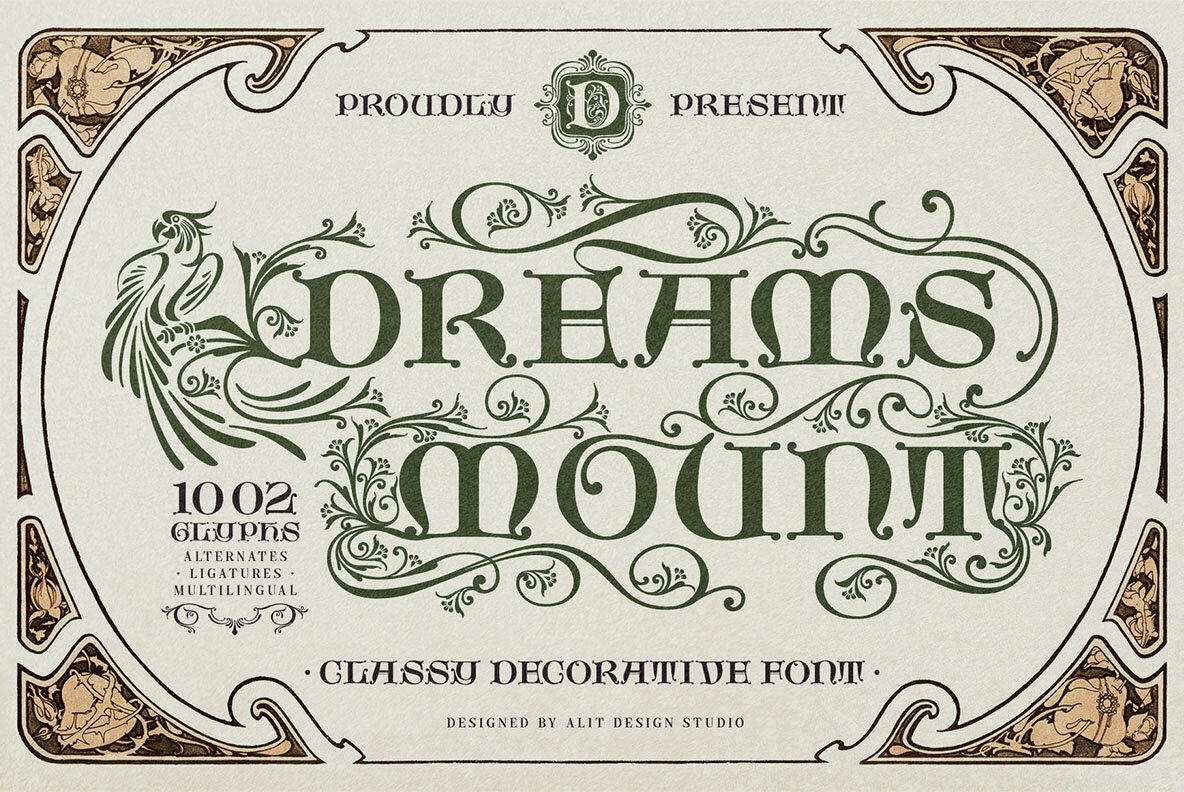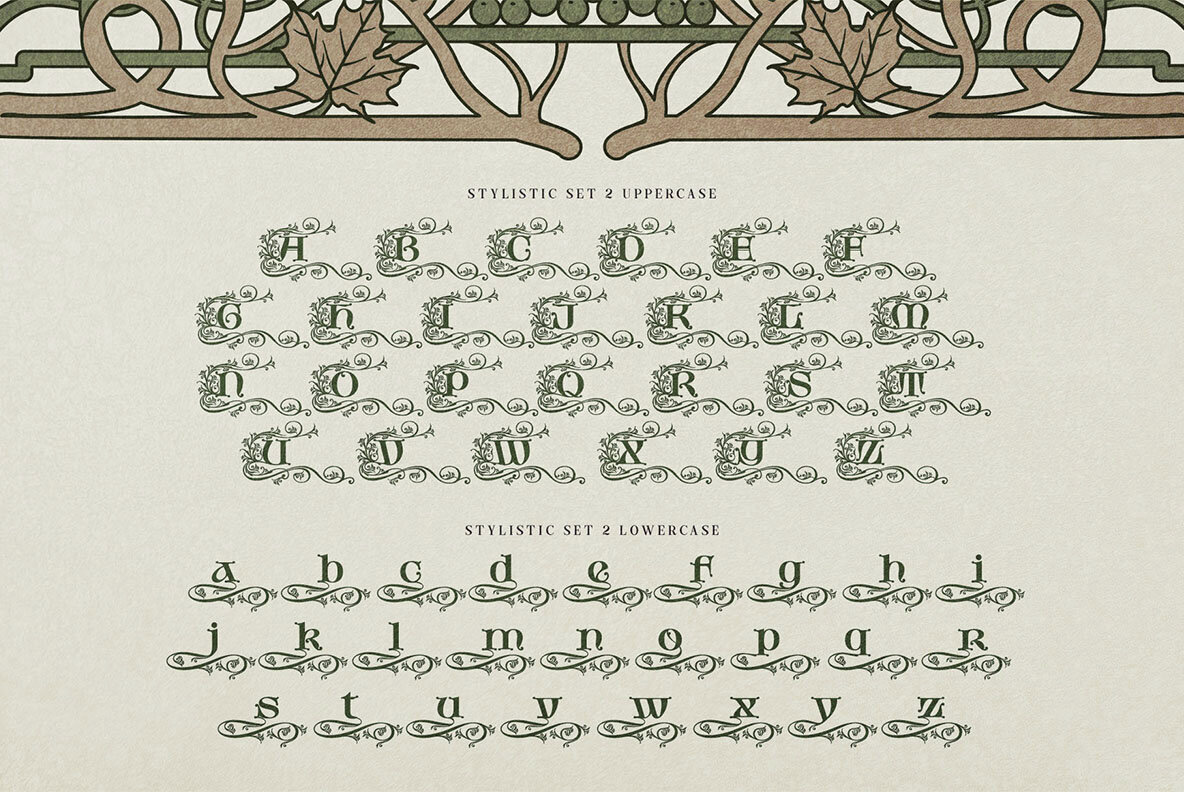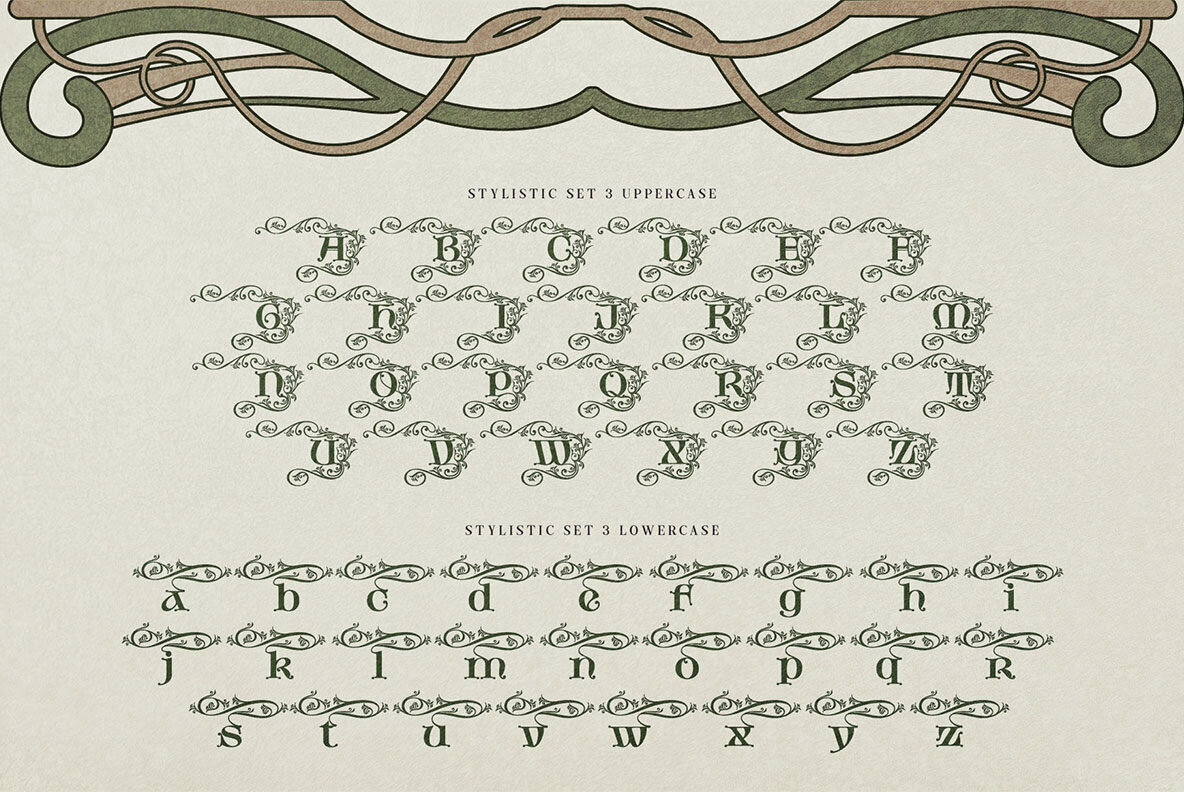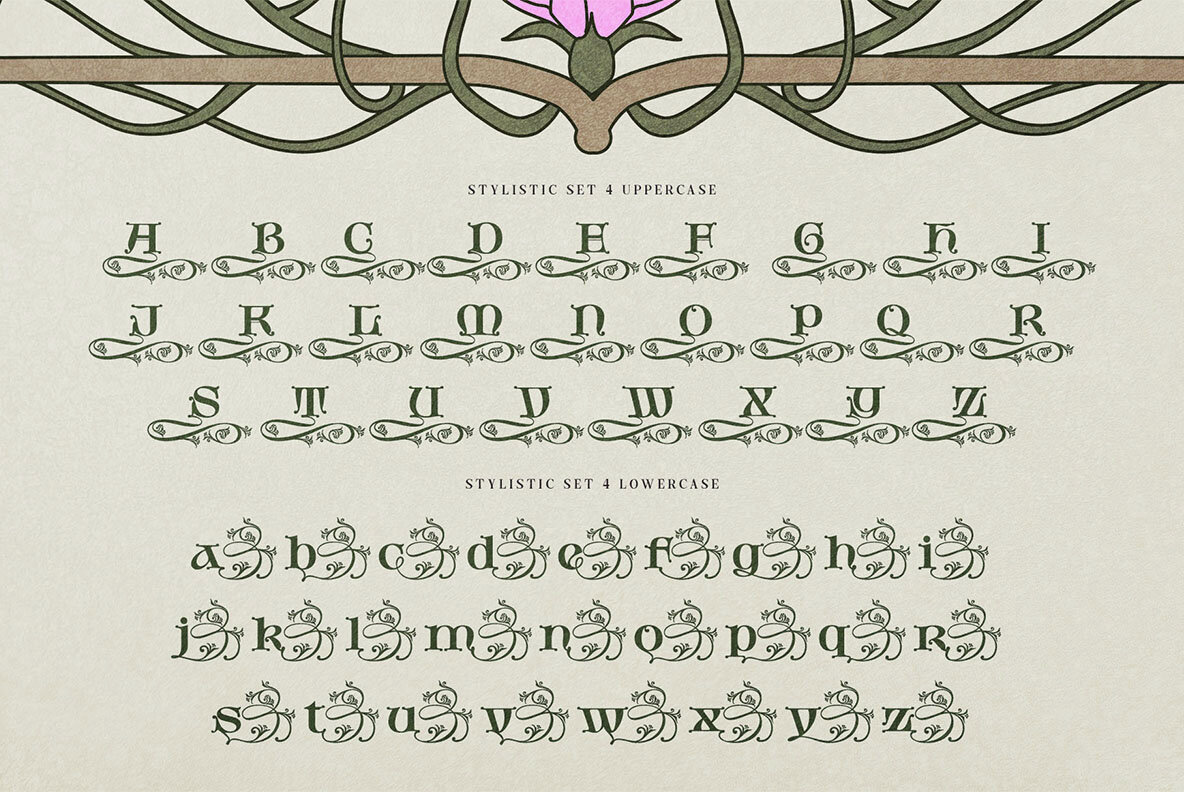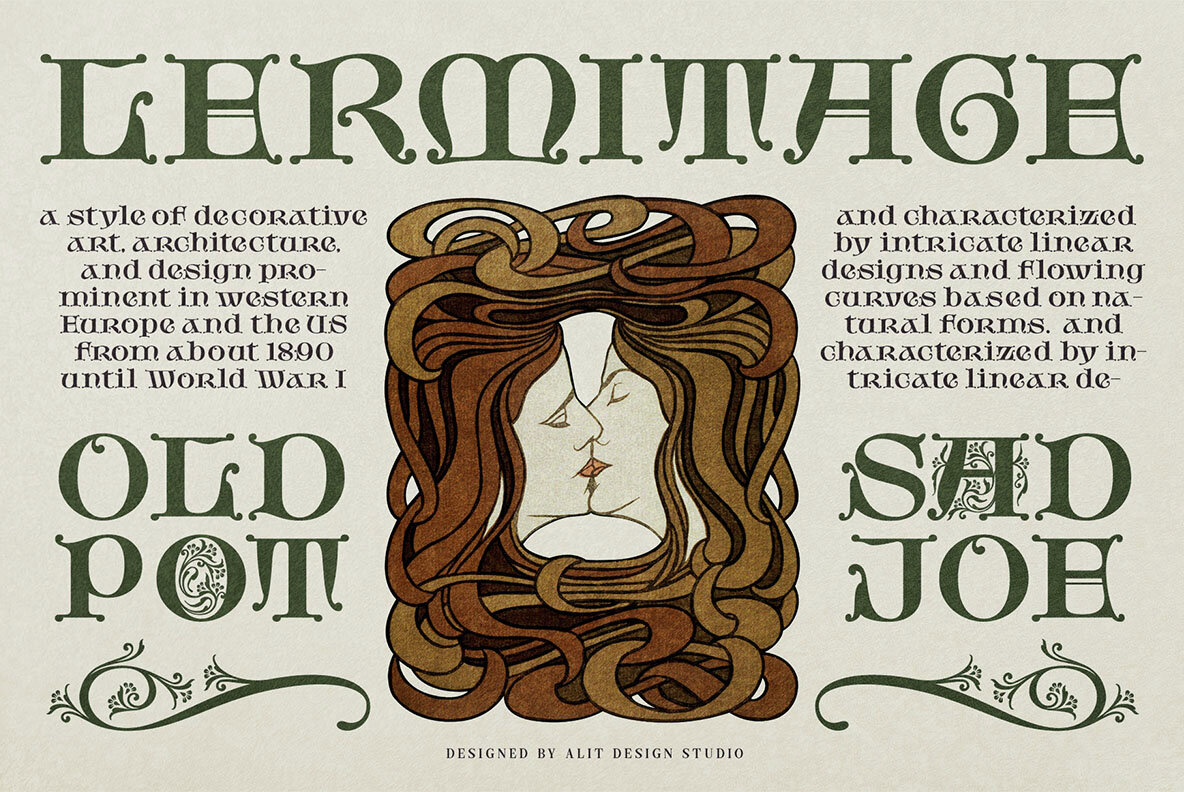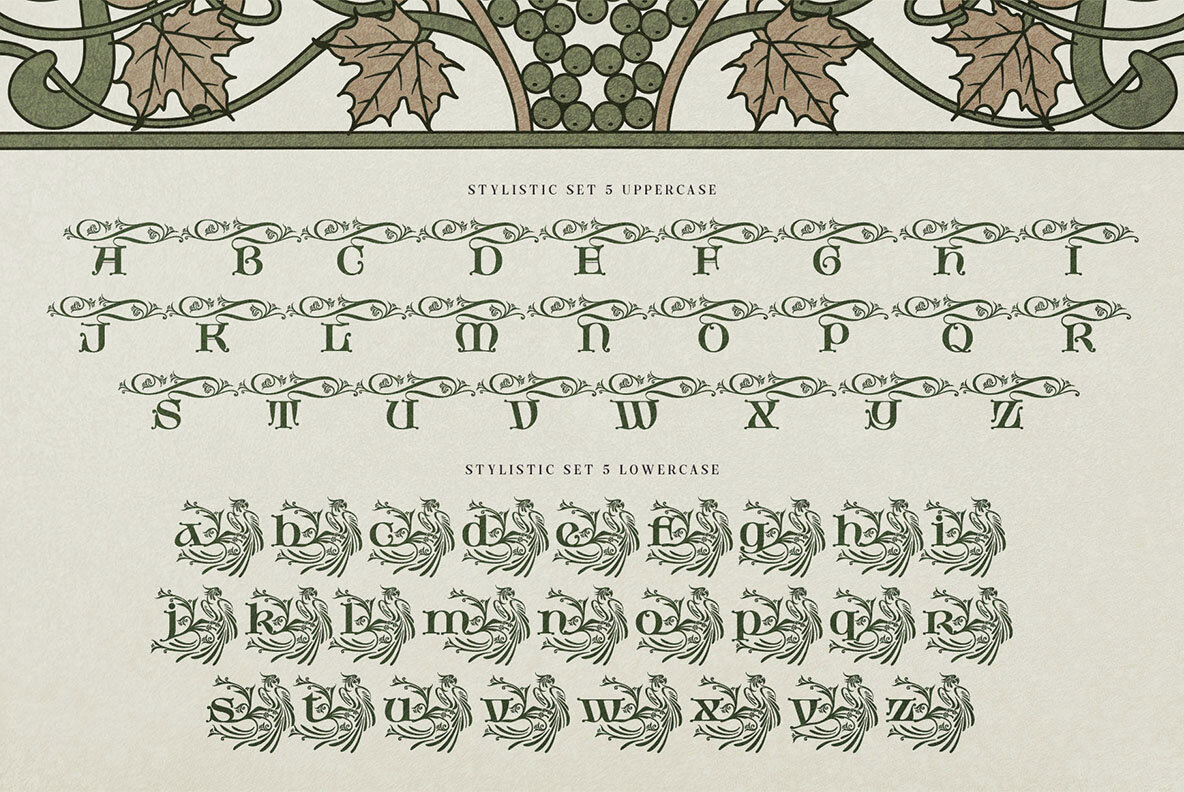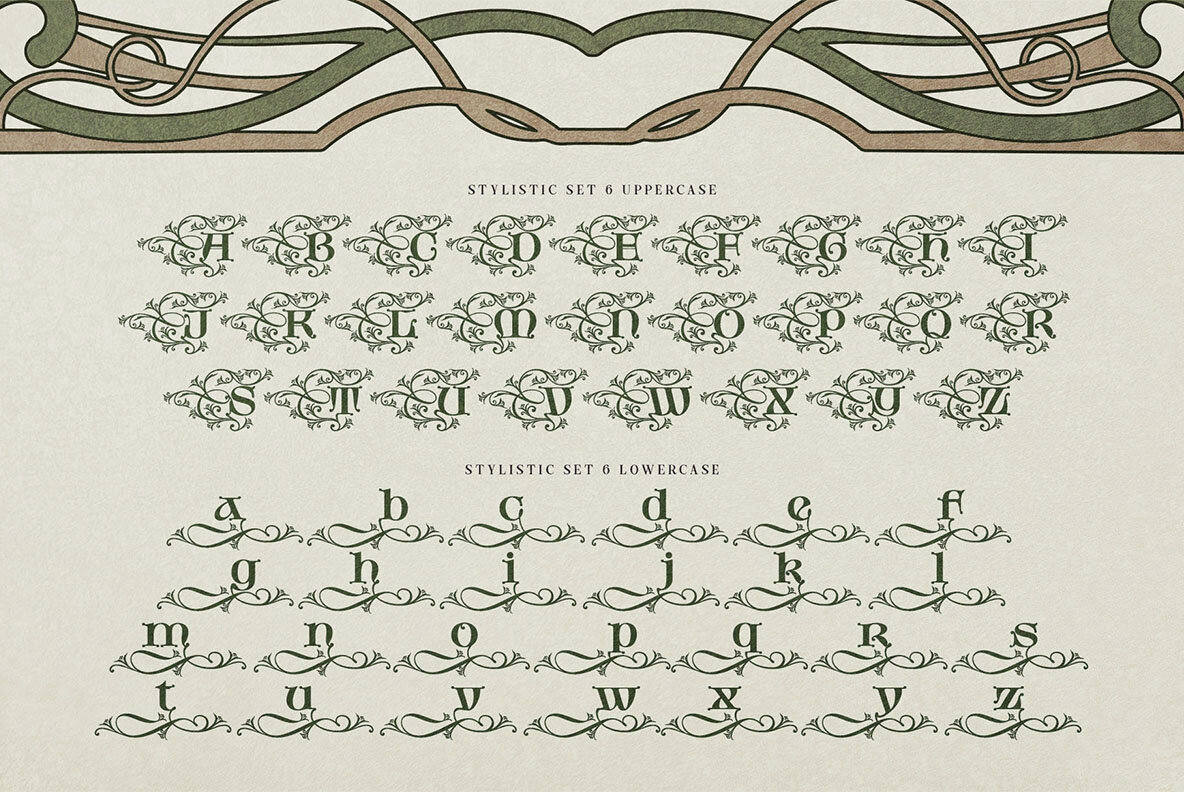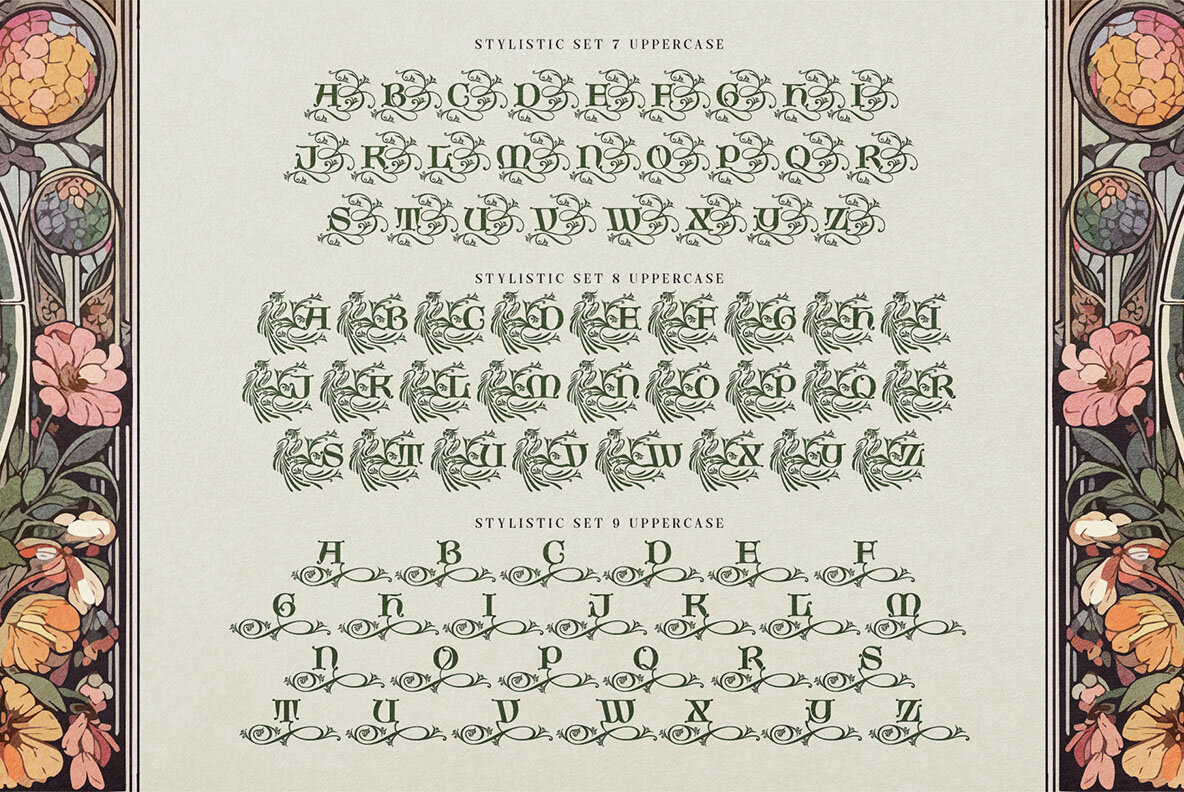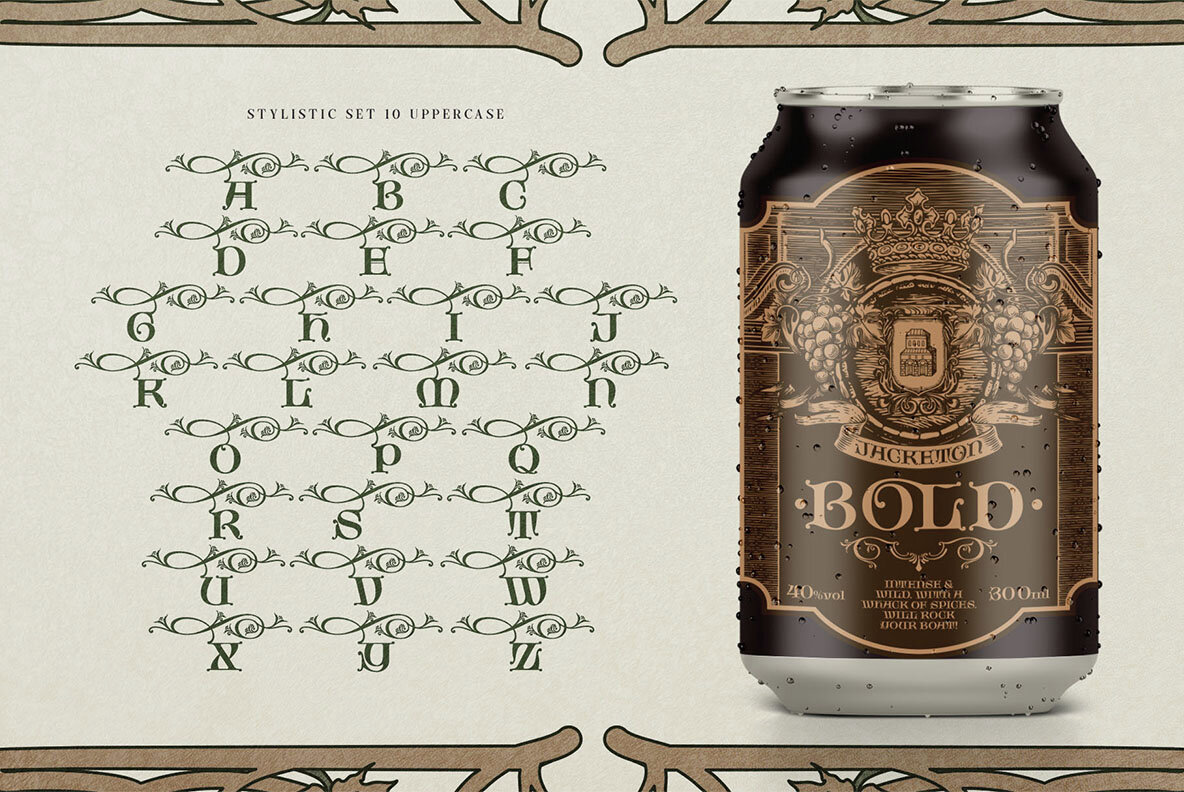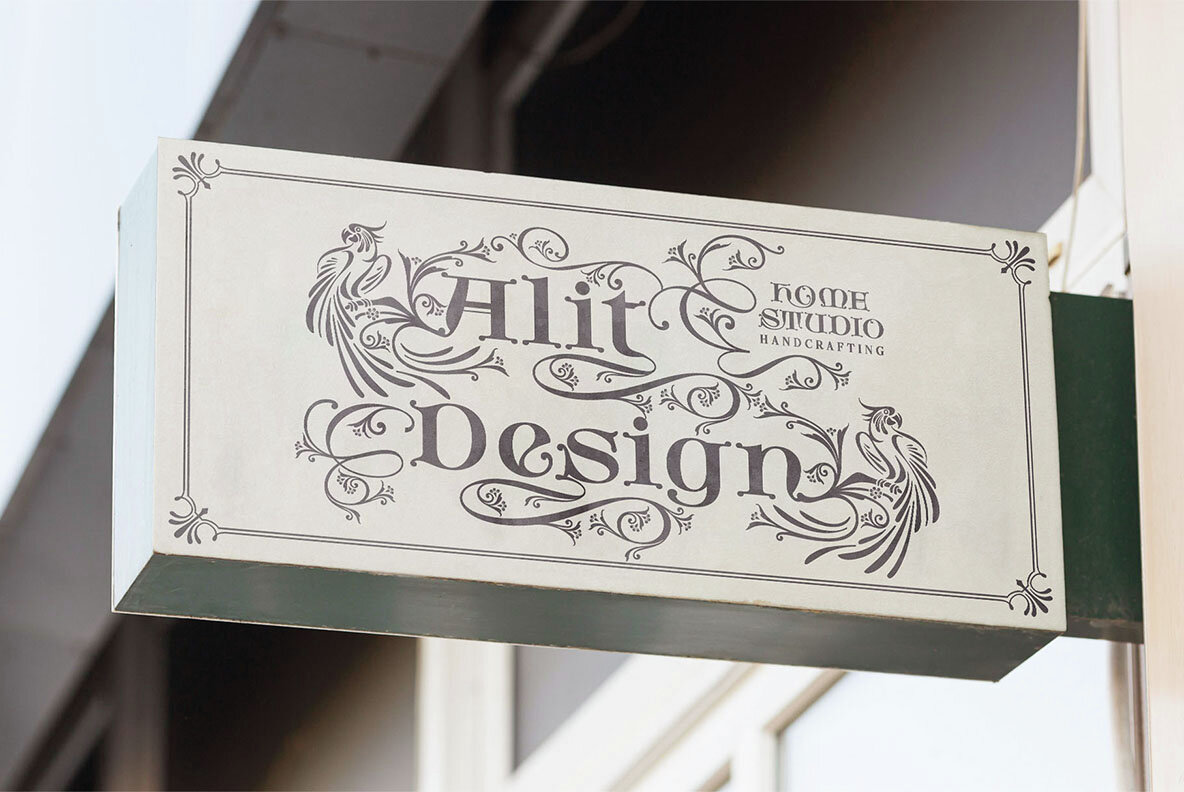
Dreams Mount Font
Enter a design era where art intertwines with nature, embodied in Dreams Mount. This decorative font captures the intricate beauty of the Art Nouveau movement, offering both a nod to history and a toolkit for modern design sophistication. If you've admired the flowing lines of vintage posters or book covers, Dreams Mount is your ideal choice. Exceptional Use Cases Choose Dreams Mount for projects demanding distinction and magic. It excels in: Utilize professional design software like Adobe Illustrator or Photoshop to access the full features of this typeface.Dreams Mount: Elegance Embodied in Typeface